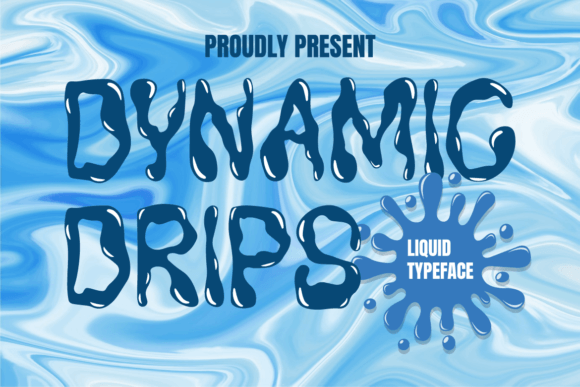
Dynamic Drips Font: Adding a Splash of Fun to Your Designs
Are you looking for a font that captures the essence of liquid and water? Do you want to add some splashy flair to your designs? If so, you will love Dynamic Drips. Dynamic Drips is a display font that features quirky letters with fluid and spontaneous shapes. Each letter is designed to resemble the movement and texture of water, making it an excellent choice for a variety of creative projects.
Key Features of Dynamic Drips Font
- Quirky Letters: Dynamic Drips boasts quirky letters that are fluid and spontaneous in shape.
- Liquid Theme: The font’s design is inspired by the movement and texture of water.
- Splash-Like Characters: Characters resemble splashes of water, adding a dynamic touch to any design.
- Versatile: Suitable for a variety of creative projects, including logos, branding, children-themed events, and more.
The Inspiration Behind Dynamic Drips
The inspiration behind Dynamic Drips stems from the natural world, specifically the fluidity and spontaneity of water. The font’s creator aimed to capture the essence of liquid in motion, resulting in a font that is both playful and dynamic. Each letter is crafted to evoke the feeling of water splashing or flowing, making it perfect for designs that require a sense of movement and energy.
Ideal Use Cases for Dynamic Drips
Dynamic Drips is not just a font; it’s an experience that caters to crafters, children’s book illustrators, and designers aiming for a fun and playful vibe. Here are some ideal use cases for this versatile font:
- Logos and Branding: Add a splashy touch to your brand identity with Dynamic Drips.
- Children-Themed Events: Create eye-catching invitations and decorations for kids’ parties and events.
- Crafting Projects: Elevate your crafting projects, such as scrapbooking and DIY tutorials, with this fun font.
- Invitation Cards: Design unique and playful invitation cards for special occasions.
- Children’s Book Illustrations: Bring your children’s book illustrations to life with Dynamic Drips.
Design Tips for Using Dynamic Drips
To make the most of Dynamic Drips, consider the following design tips:
- Pair with Solids: Pair Dynamic Drips with solid, bold fonts to create contrast and make your design pop.
- Use Bright Colors: Bright colors complement the playful nature of Dynamic Drips; experiment with vibrant hues to enhance your design.
- Experiment with Sizes: Play around with different font sizes to create visual interest and hierarchy in your design.
- Add Texture: Consider adding texture to your design to give it a more organic and playful feel.
Benefits of Using Dynamic Drips Font
- Unique and Playful: Dynamic Drips adds a unique and playful touch to your designs.
- Versatile: Suitable for a wide range of creative projects and applications.
- High-Quality: The font is designed with high-quality and clarity in mind, ensuring it looks great in any design.
Dynamic Drips is a versatile and playful font that can add a splash of fun to your designs. With its quirky letters and liquid theme, it’s perfect for a variety of creative projects, from logos and branding to children’s book illustrations and crafting projects. By following the design tips and guidelines outlined in this article, you can make the most of Dynamic Drips and create eye-catching designs that stand out.